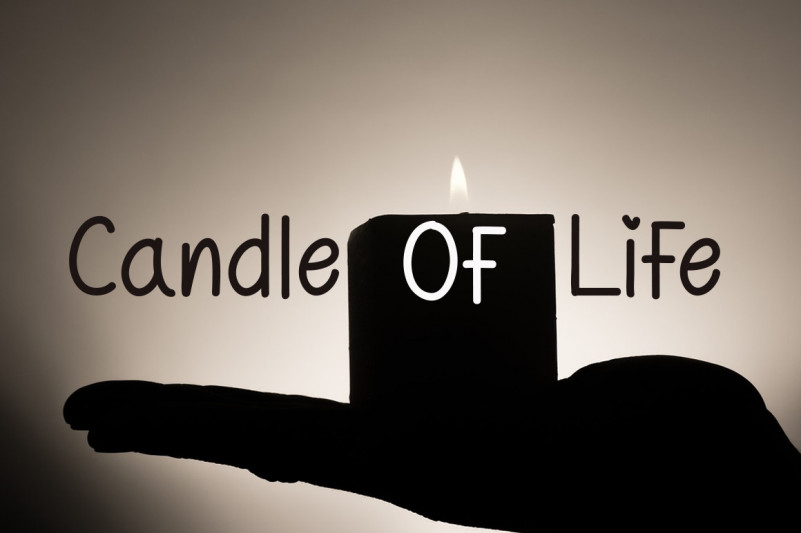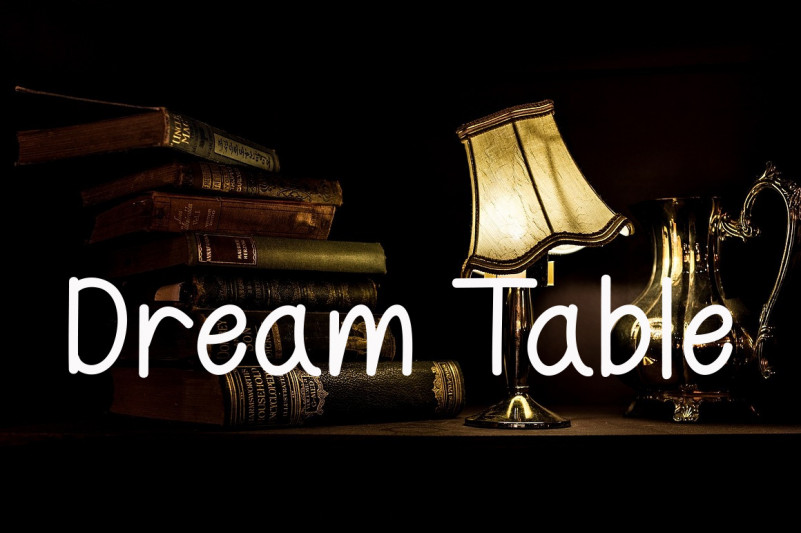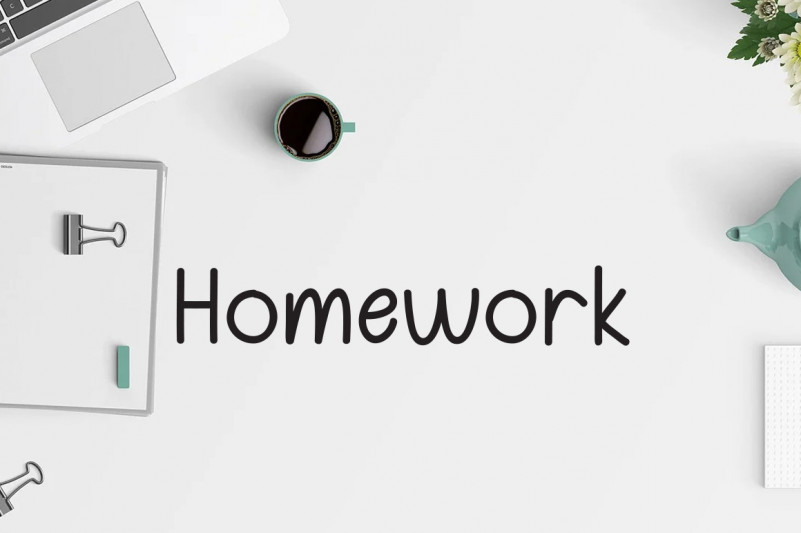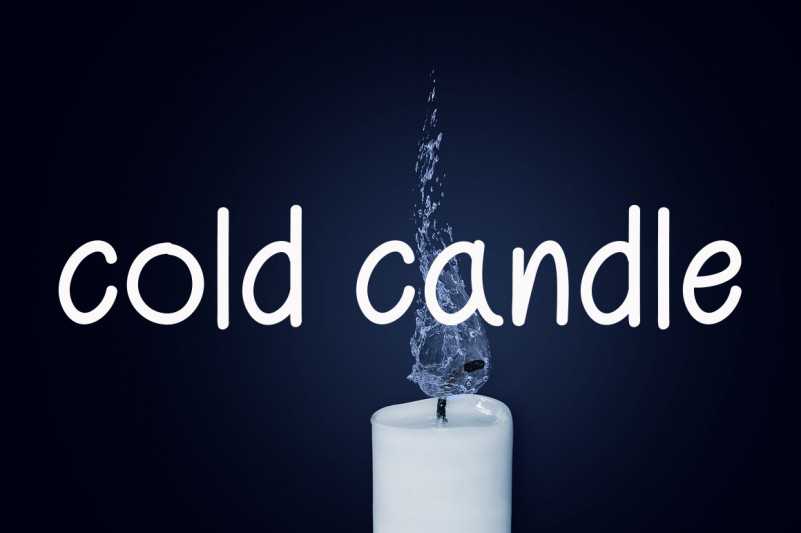
Easter Sheep Display Font
This is a sweet and friendly handwritten font. Its natural and unique style makes it incredibly fitting to a large pool of designs. Have fun with this beautiful font and explore its endless variations.